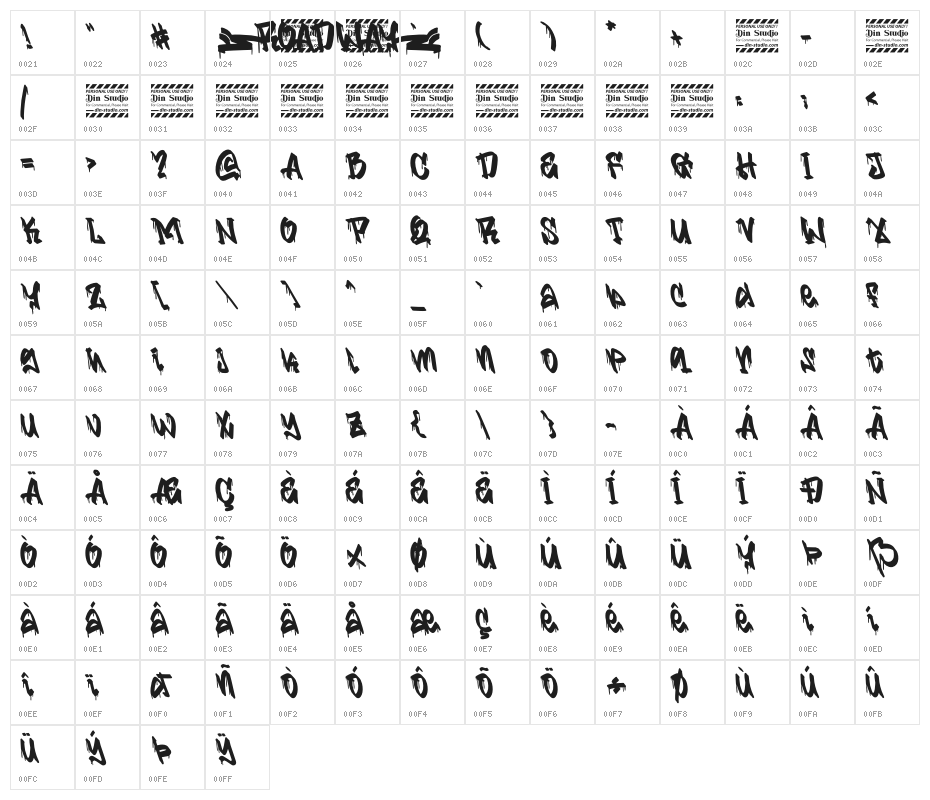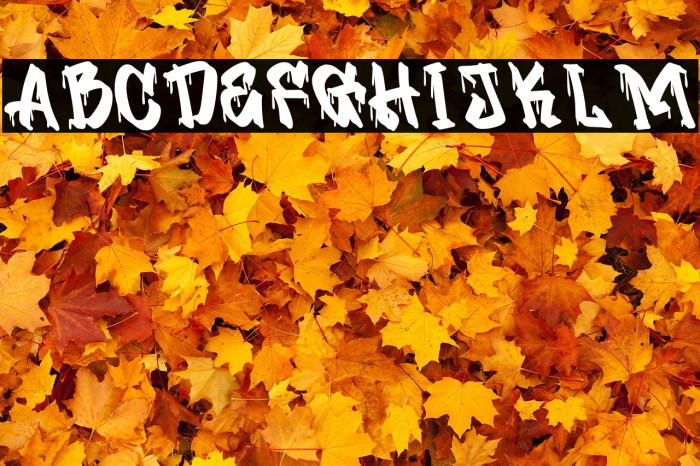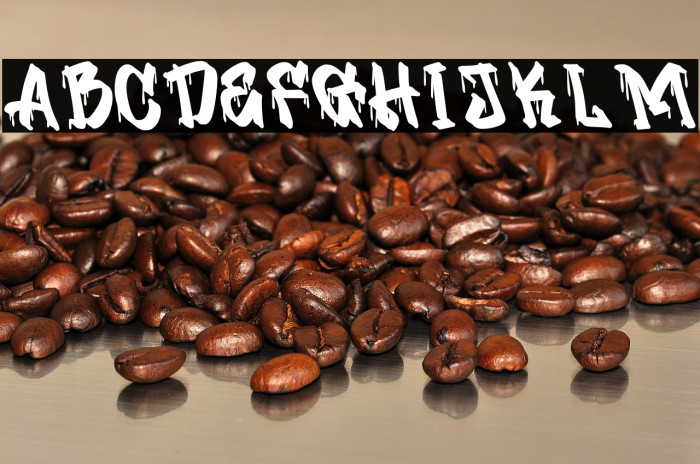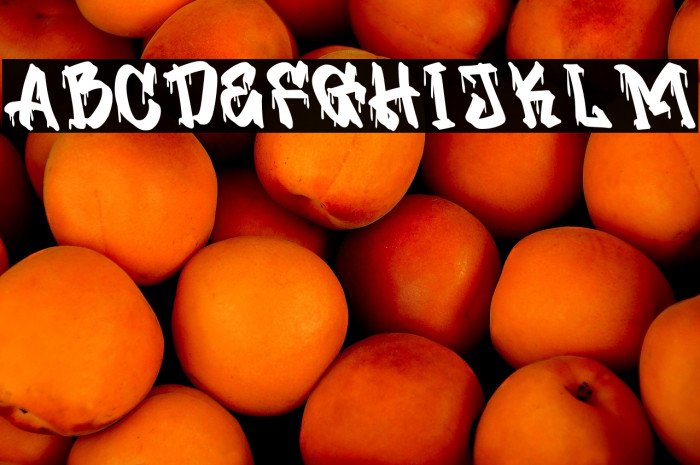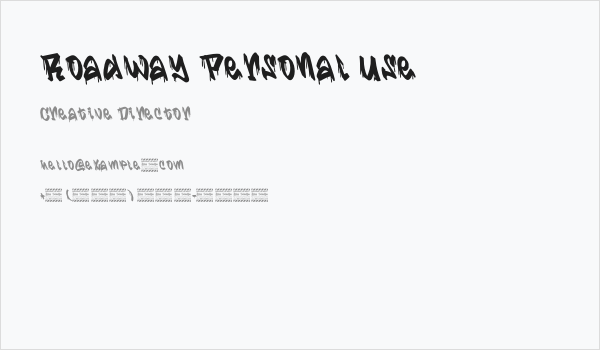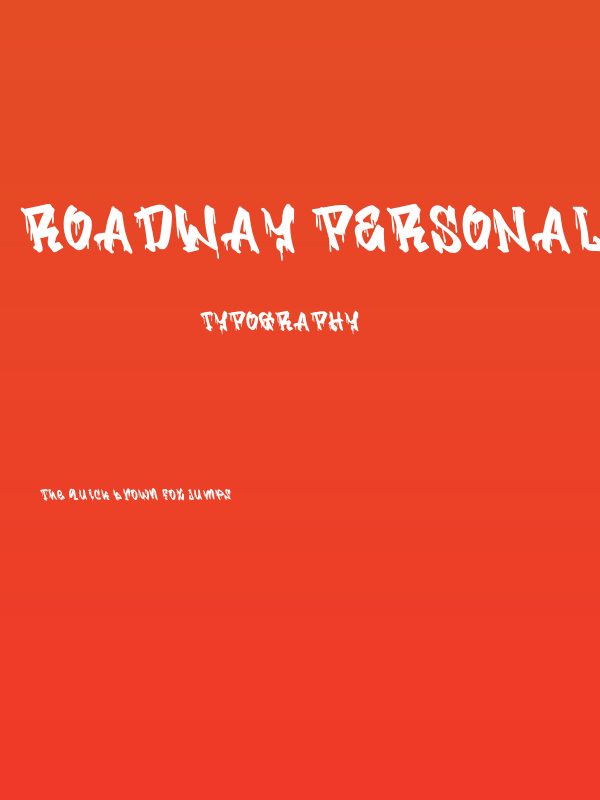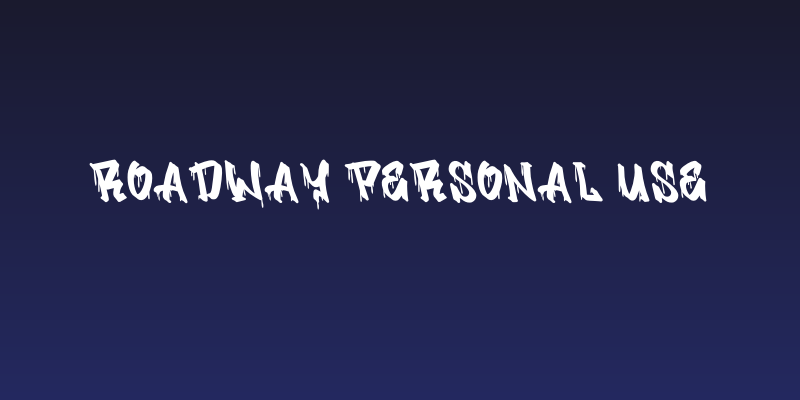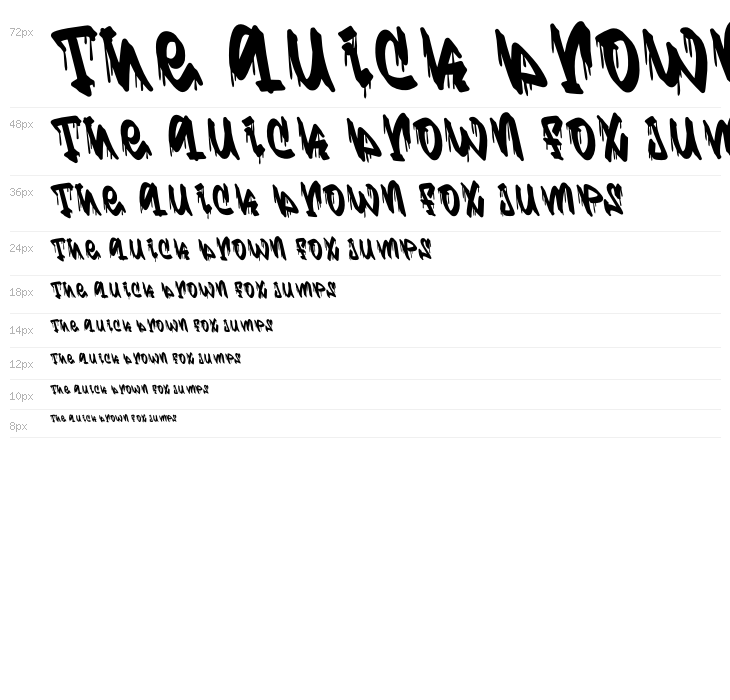
Roadway Personal Use Font
Roadway Personal Use Description
This font features a bold and edgy design with a graffiti-like appearance. The characters are stylized with sharp, angular edges and a dripping effect that gives them a dynamic and rebellious look. The uppercase and lowercase letters maintain a consistent style, with each character exhibiting a unique flair. The numbers and special characters are equally expressive, making the font suitable for attention-grabbing designs. The overall aesthetic is urban and modern, perfect for projects that require a strong visual impact.
| Overall Style | Modern, Urban, Edgy |
| Proposed Projects | Ideal for street art designs, music album covers, urban-themed posters, and edgy branding projects. |